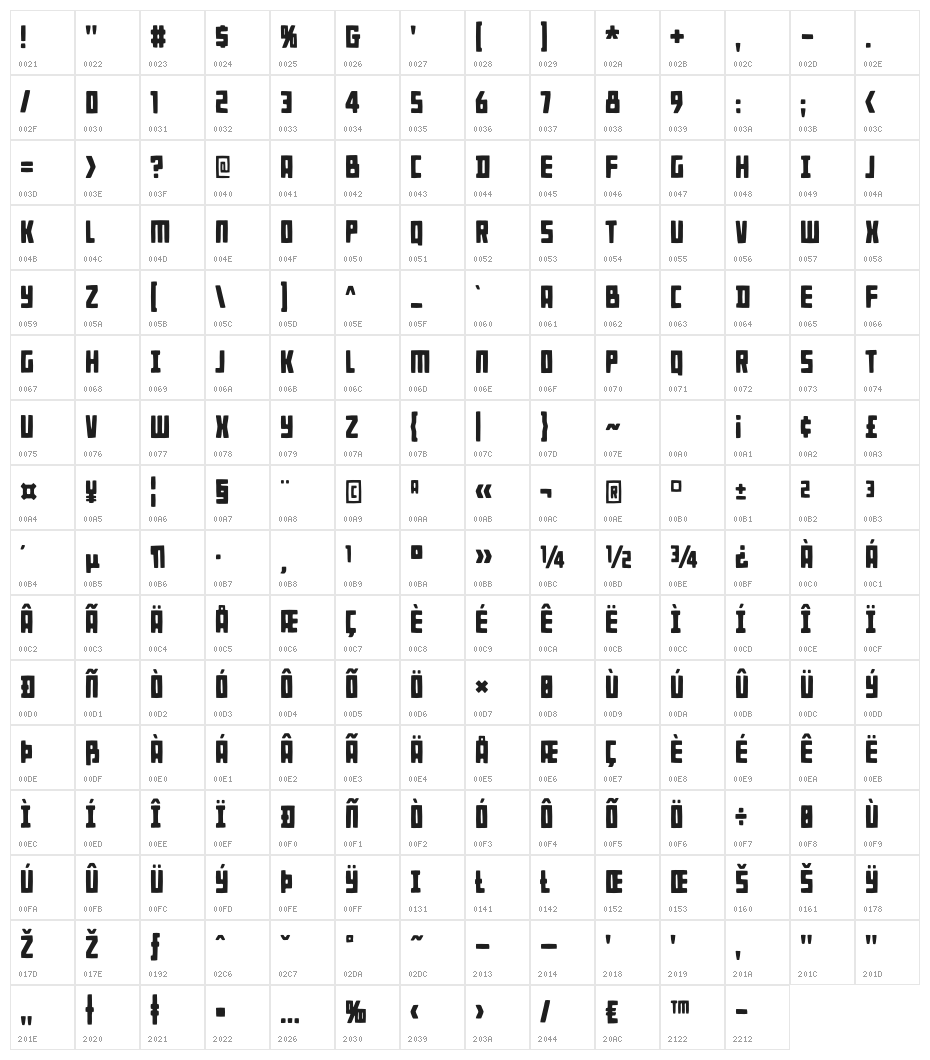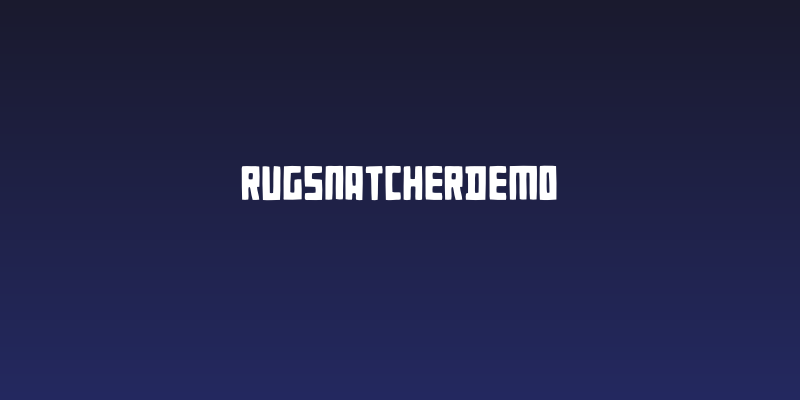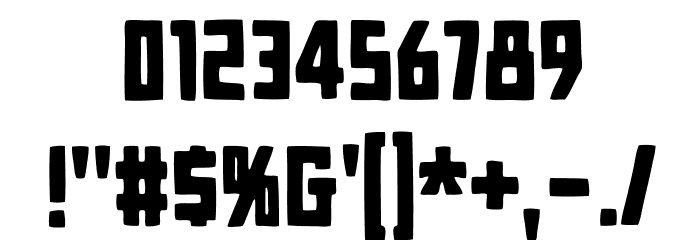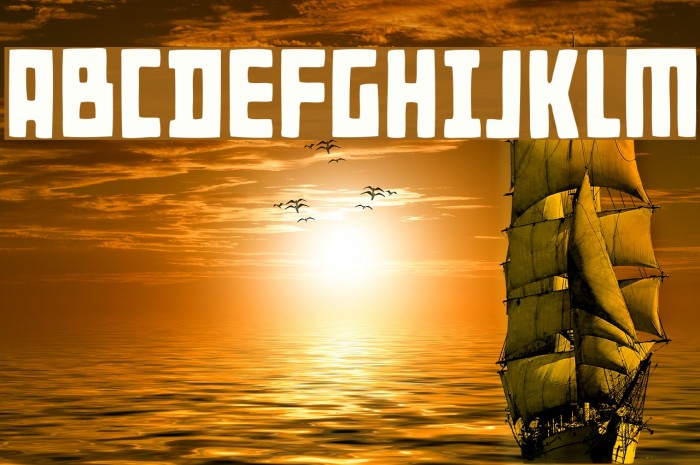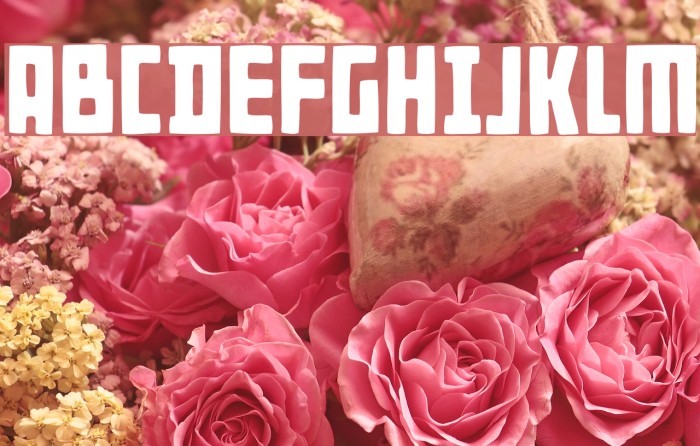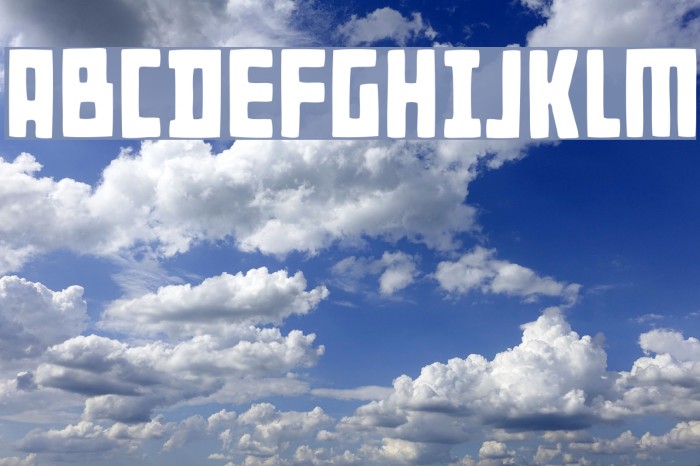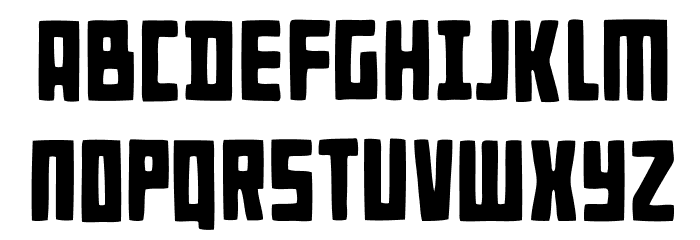
RugsnatcherDEMO Font
RugsnatcherDEMO Description
This font features a bold and blocky design with a strong presence, characterized by its thick, uniform strokes and geometric shapes. The uppercase letters are robust and slightly condensed, giving a sense of solidity and impact. The numbers and special characters maintain the same boldness, ensuring consistency throughout. Its design is reminiscent of stencil or industrial styles, making it suitable for projects that require a strong visual statement. The font's simplicity and uniformity make it easily readable, even at smaller sizes.
| Overall Style | Industrial, Modern |
| Proposed Projects | Ideal for posters, signage, branding, and any project needing a strong, impactful typeface. |